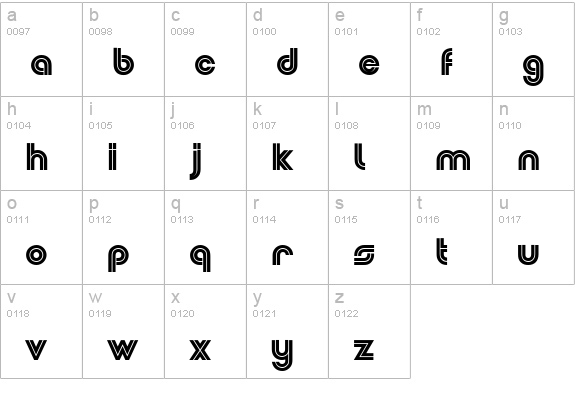
Dubbeldik MN Font Details
Dubbeldik MN font is a modern and stylish typeface that exudes confidence and sophistication. With its bold and unique design, Dubbeldik MN is sure to make a statement in any project. Whether you're designing a logo, poster, or website, this font will add a touch of elegance and class. What sets Dubbeldik MN apart is its versatility - it can be used for both headlines and body text, making it a perfect choice for any design project. Its clean lines and sharp edges give it a contemporary look that is both eye-catching and easy to read. The best part? Dubbeldik MN font is completely free to download at FontsMarket.com. So go ahead and add this stunning typeface to your collection today and elevate your designs to the next level with Dubbeldik MN.